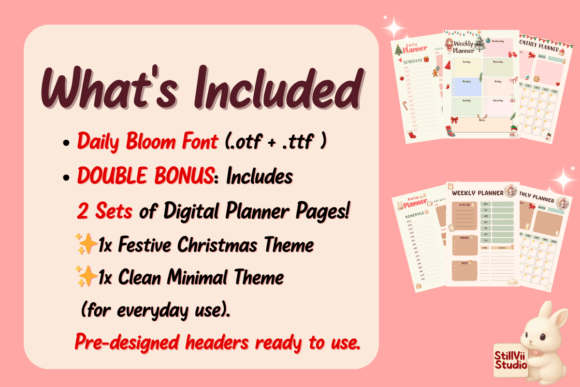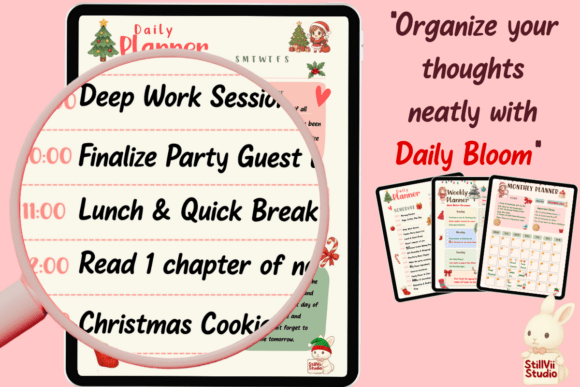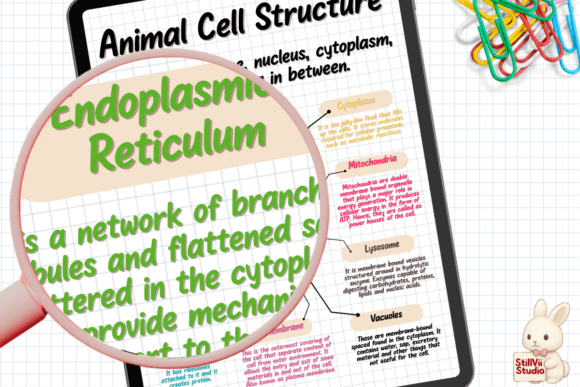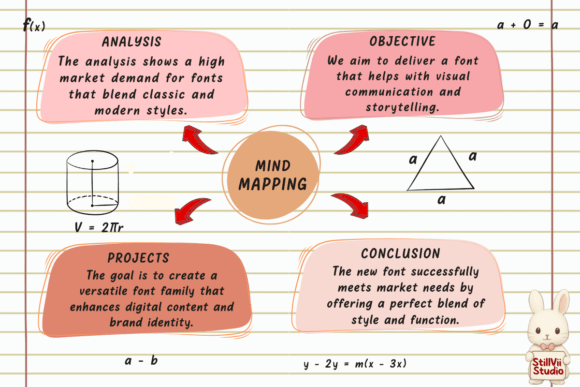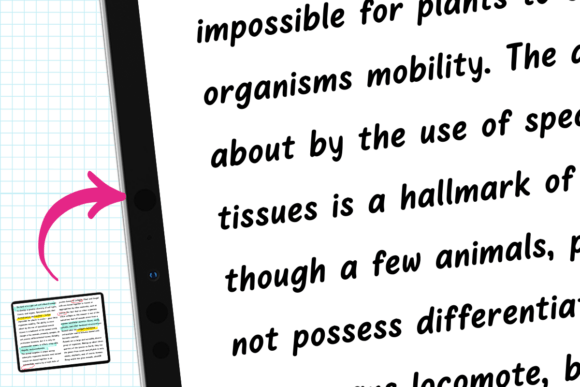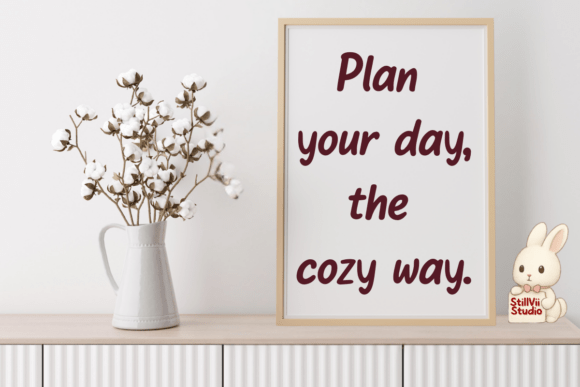
Introduction to Daily Bloom Font
Bring a vibrant touch to your daily routine with Daily Bloom, the ultimate handwritten font designed for the modern digital planner and journal enthusiast.
This font is a cheerful, legible script thatโs perfect for Goodnotes, Notability, Procreate, and Remarkable It brings aesthetic charm and a fresh, organized feel to your daily routine.
Key Features of Daily Bloom Font
Why Choose Daily Bloom Font?
Daily Bloom Font offers exceptional quality and versatility, making it a valuable addition to your design toolkit. Whether you’re creating for personal projects or commercial use, Daily Bloom Font delivers professional results.